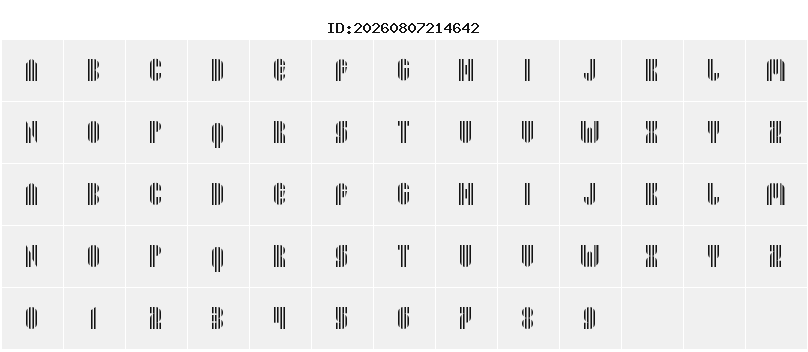
Pyrsing Preview
• Font Name: Pyrsing
• Full Font Name: Pyrsing
• Version: Version 1.00 April 15, 2016, initial release
• Designer: AM
About Pyrsing.otf
Pyrsing.otf is a modern, elegant sans-serif font designed for ultimate readability and visual harmony. Perfect for branding, headlines, web design, and print materials.